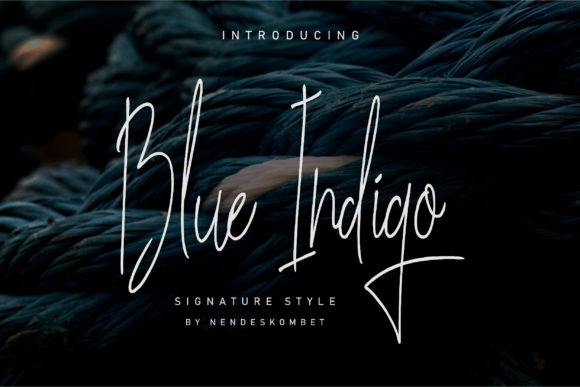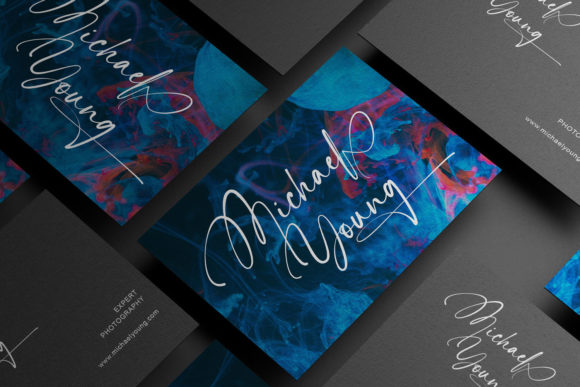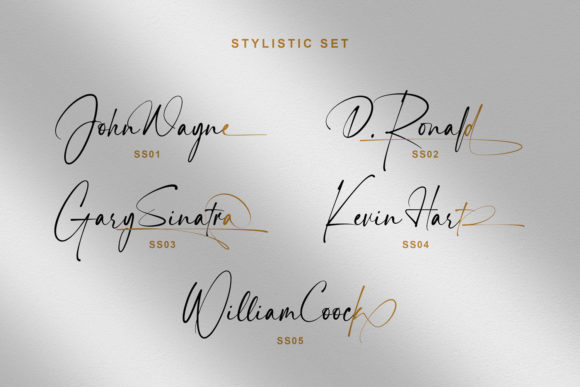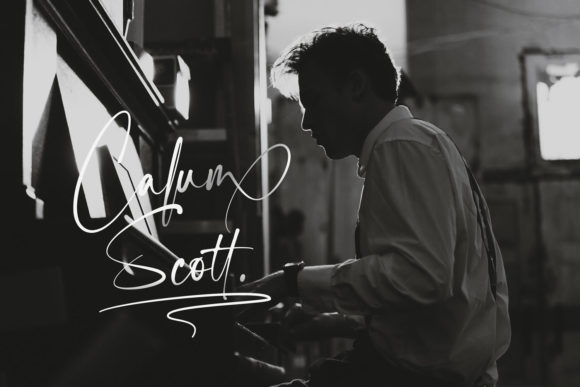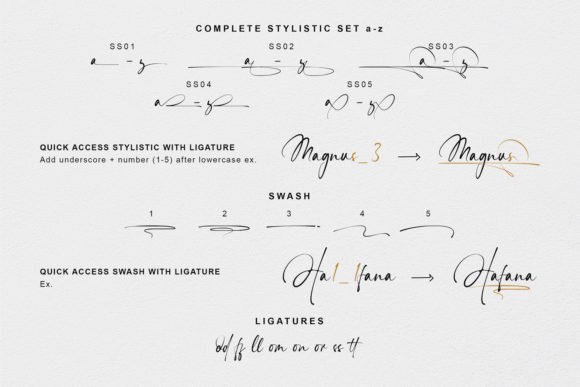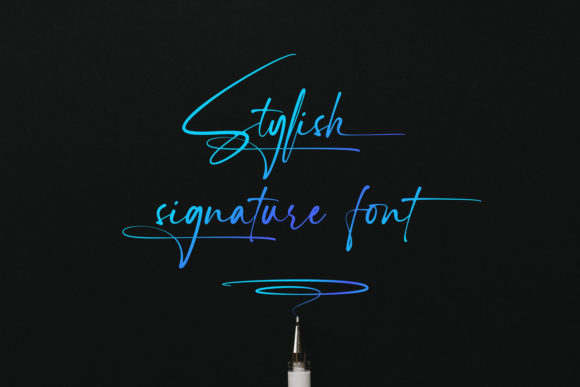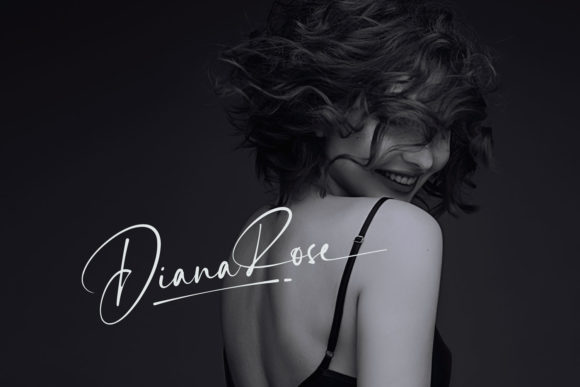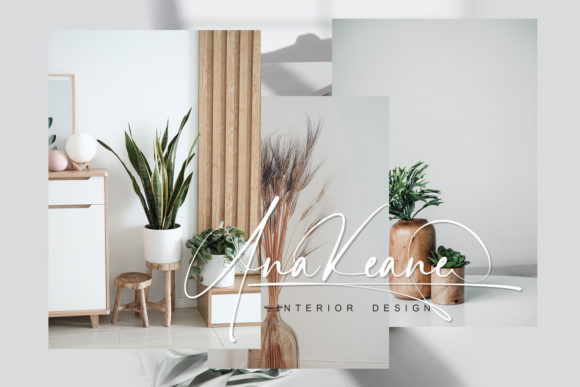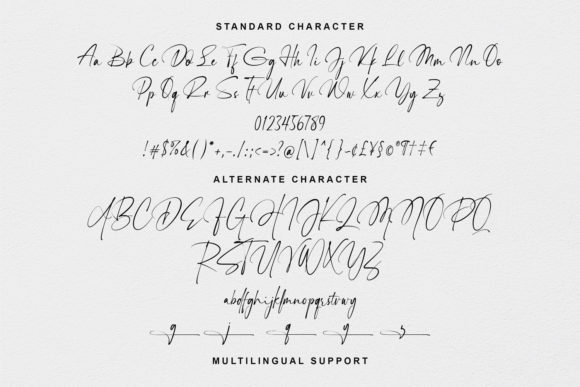
Sign Rathi Font
About Sign Rathi Font
Sign Rathi is a cursive and thin lettered script font. This font is PUA encoded which means you can access all of the glyphs and swashes with ease!
Fall for its ravishing style and use it to create gorgeous designs.